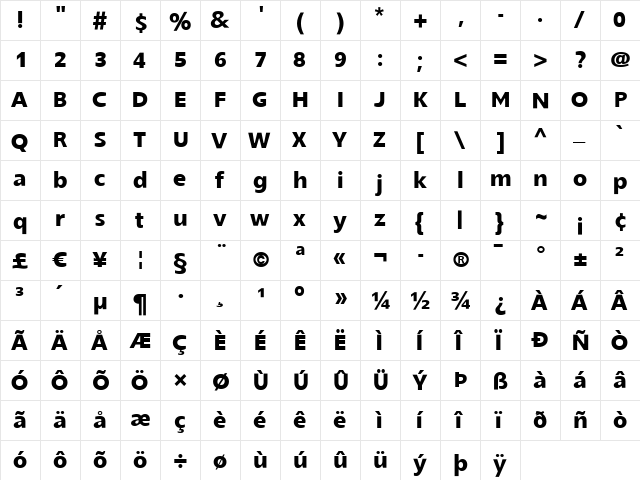
Slippy Bold
Design Context for Slippy Typeface
Slippy takes a measured approach to typography — its balanced proportions and neutral character make it a reliable workhorse for both digital and print work. The heavy weight commands attention and anchors typographic hierarchies.
Pro Tip: Use Slippy in both headline and body roles to test its range before committing to a single application.